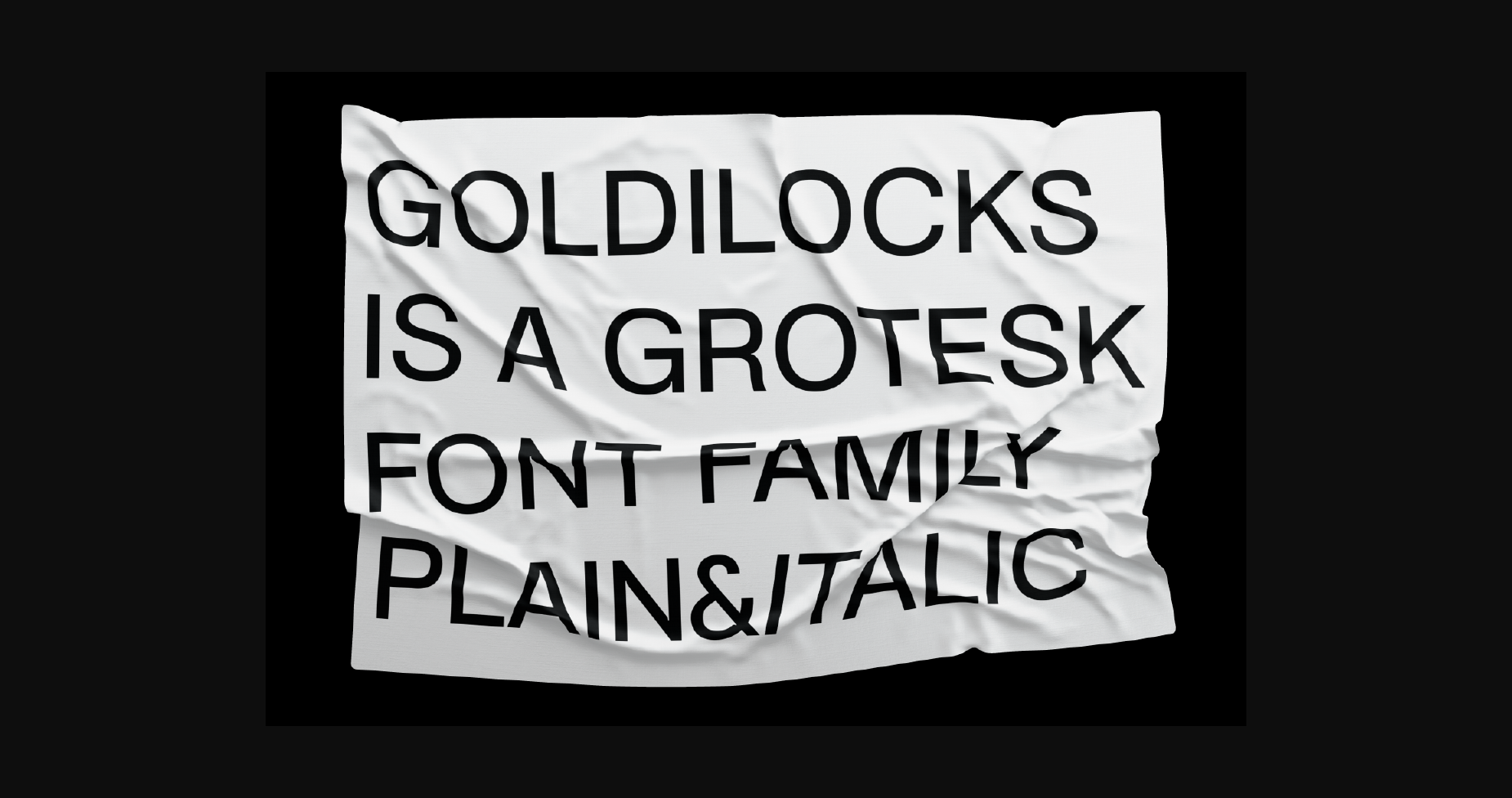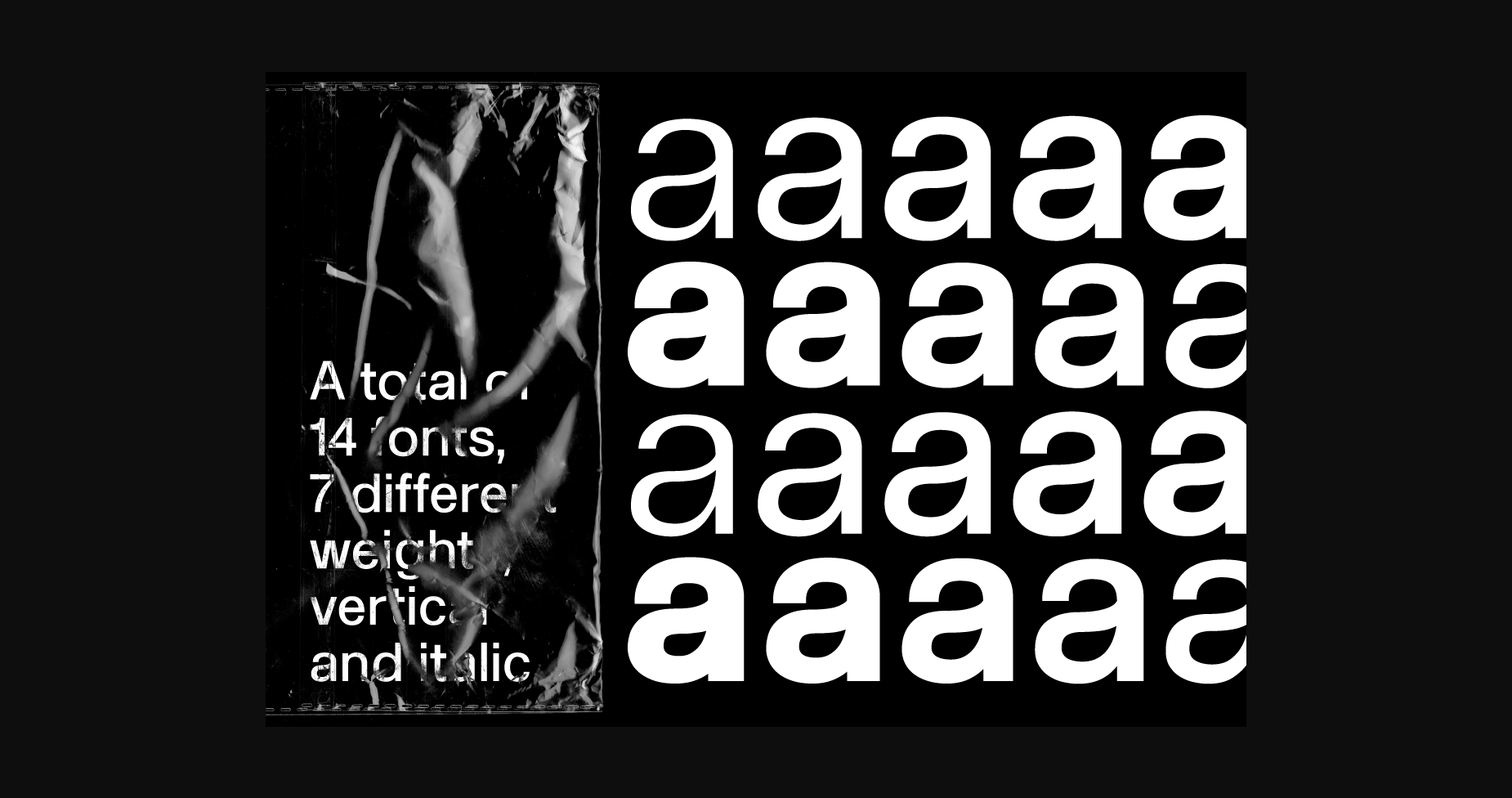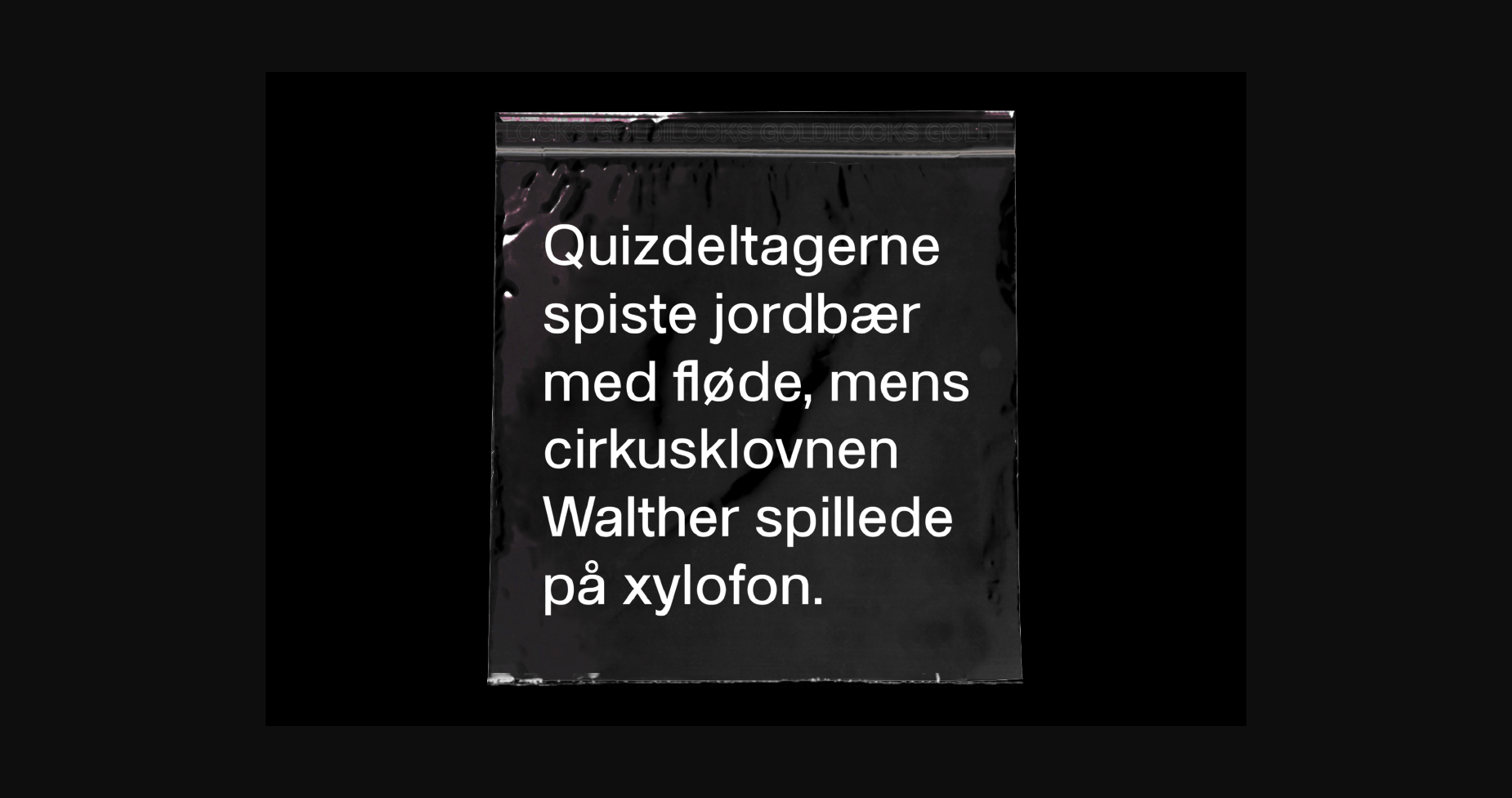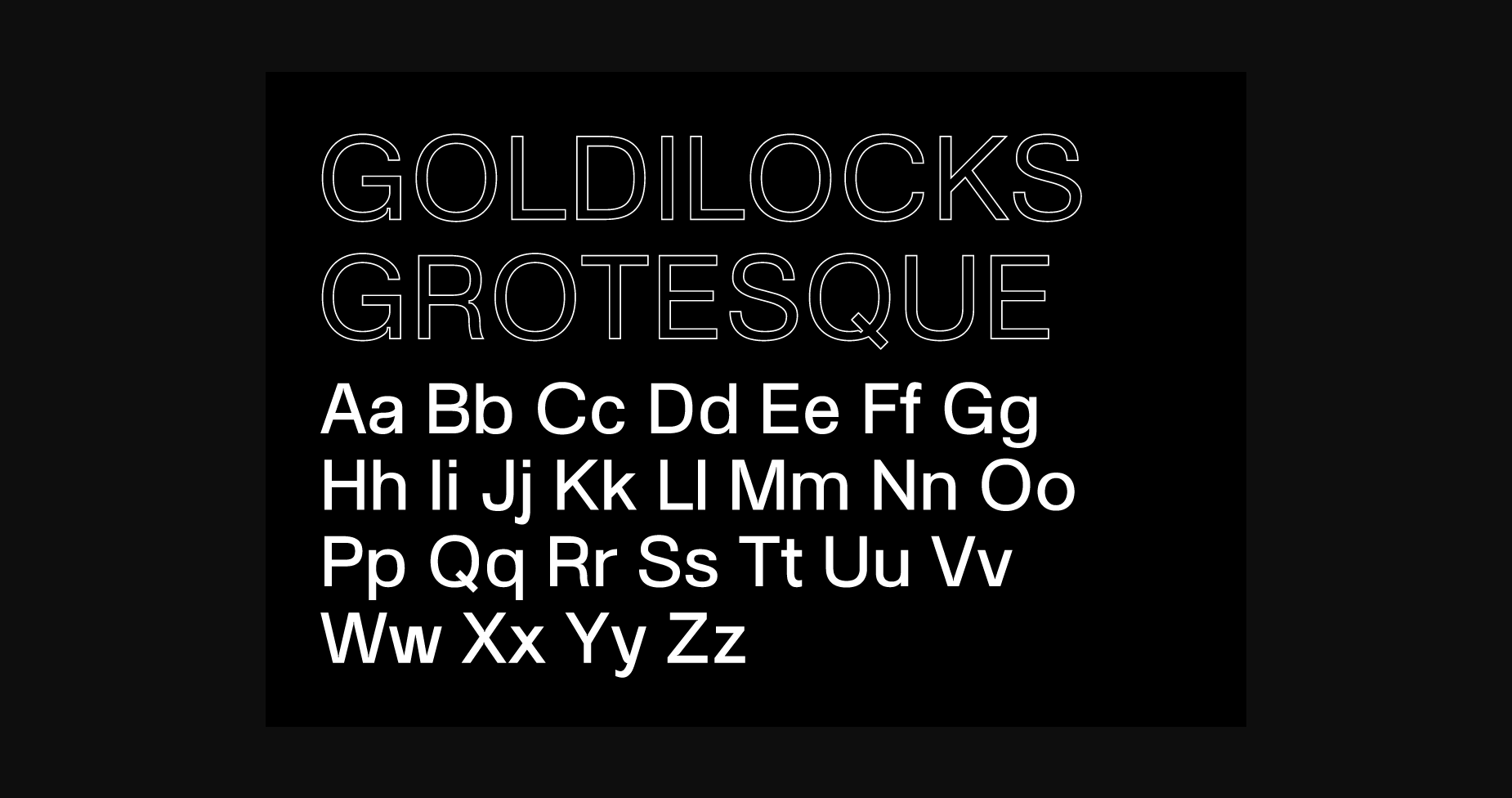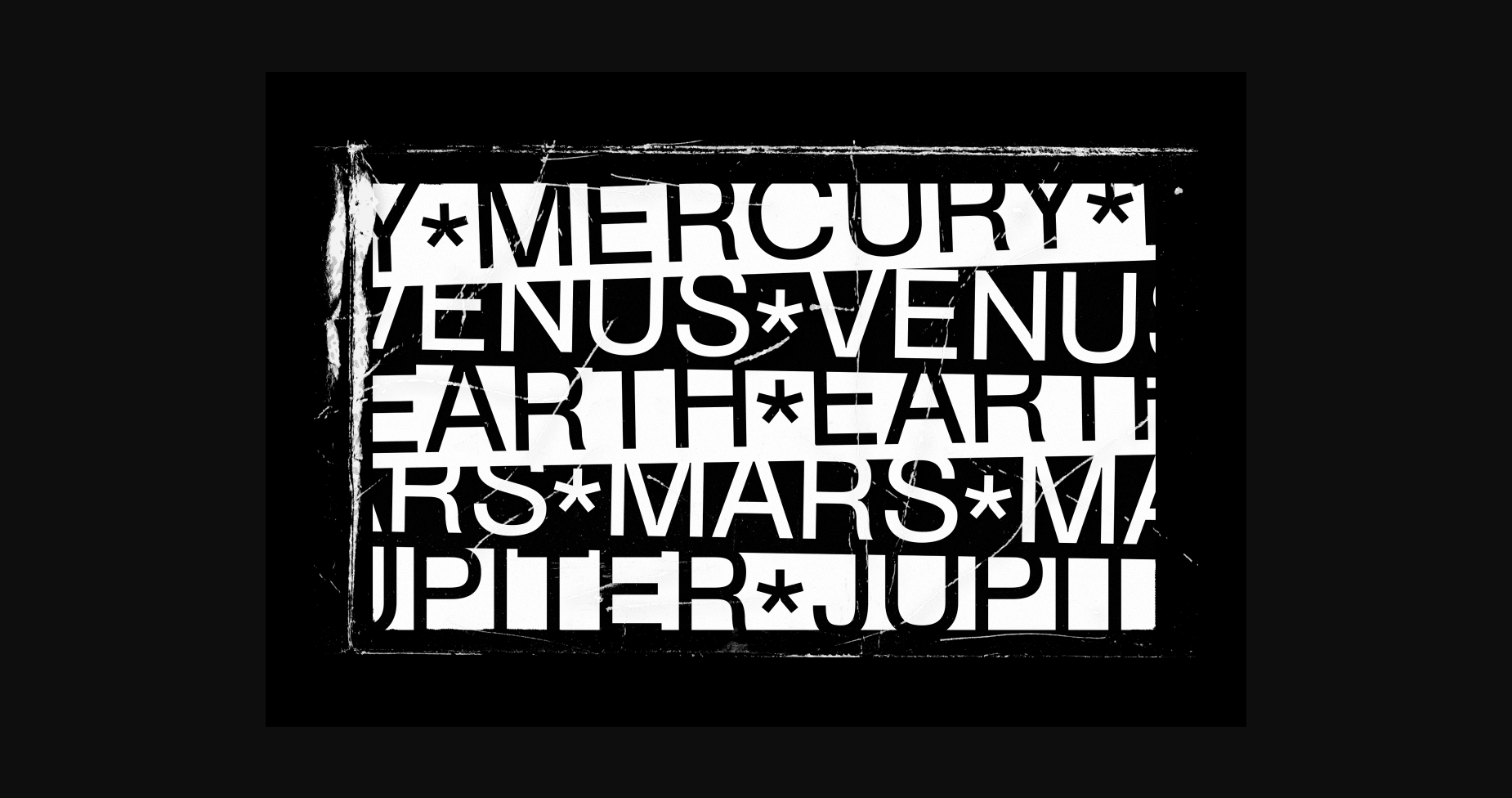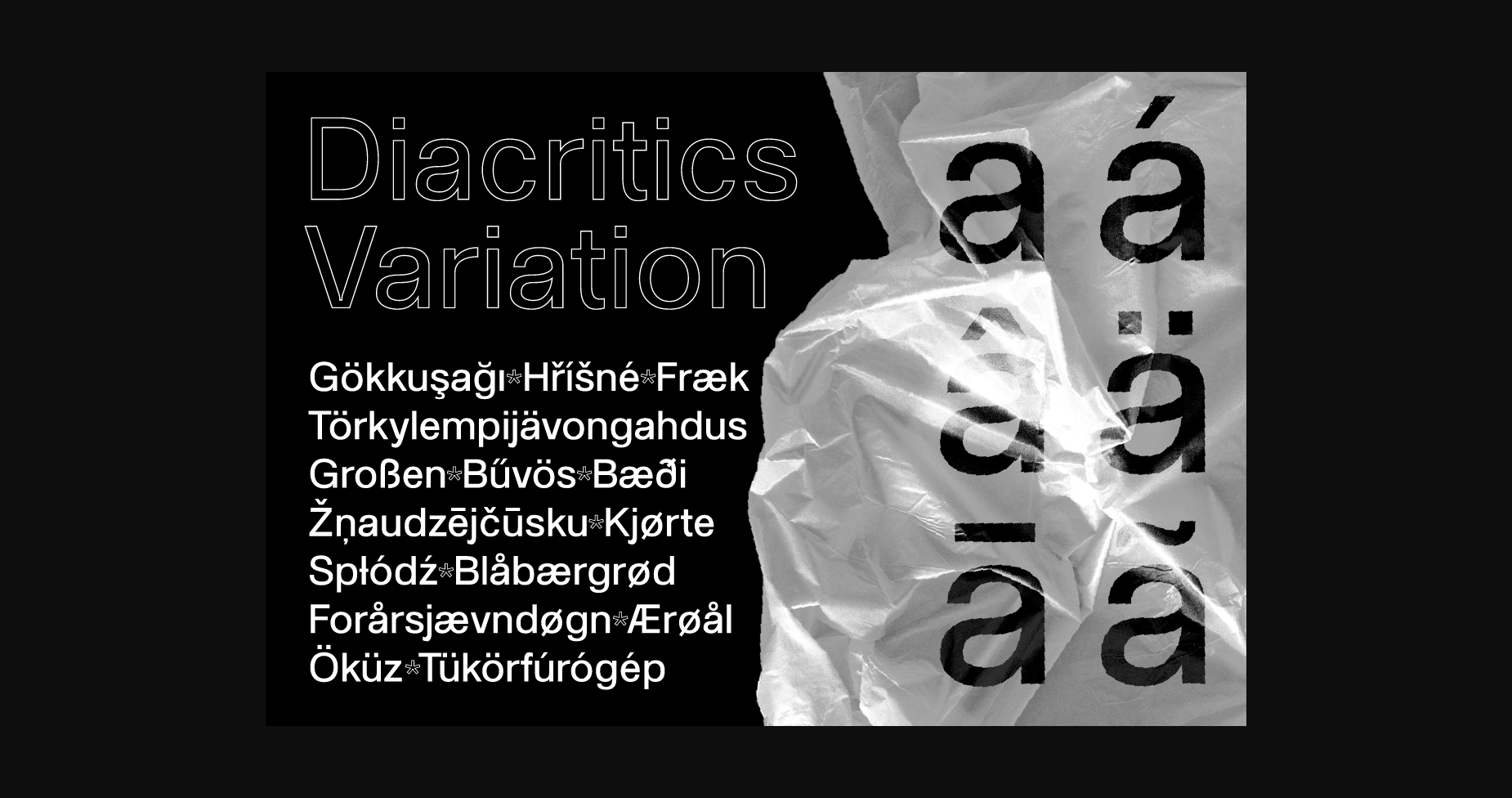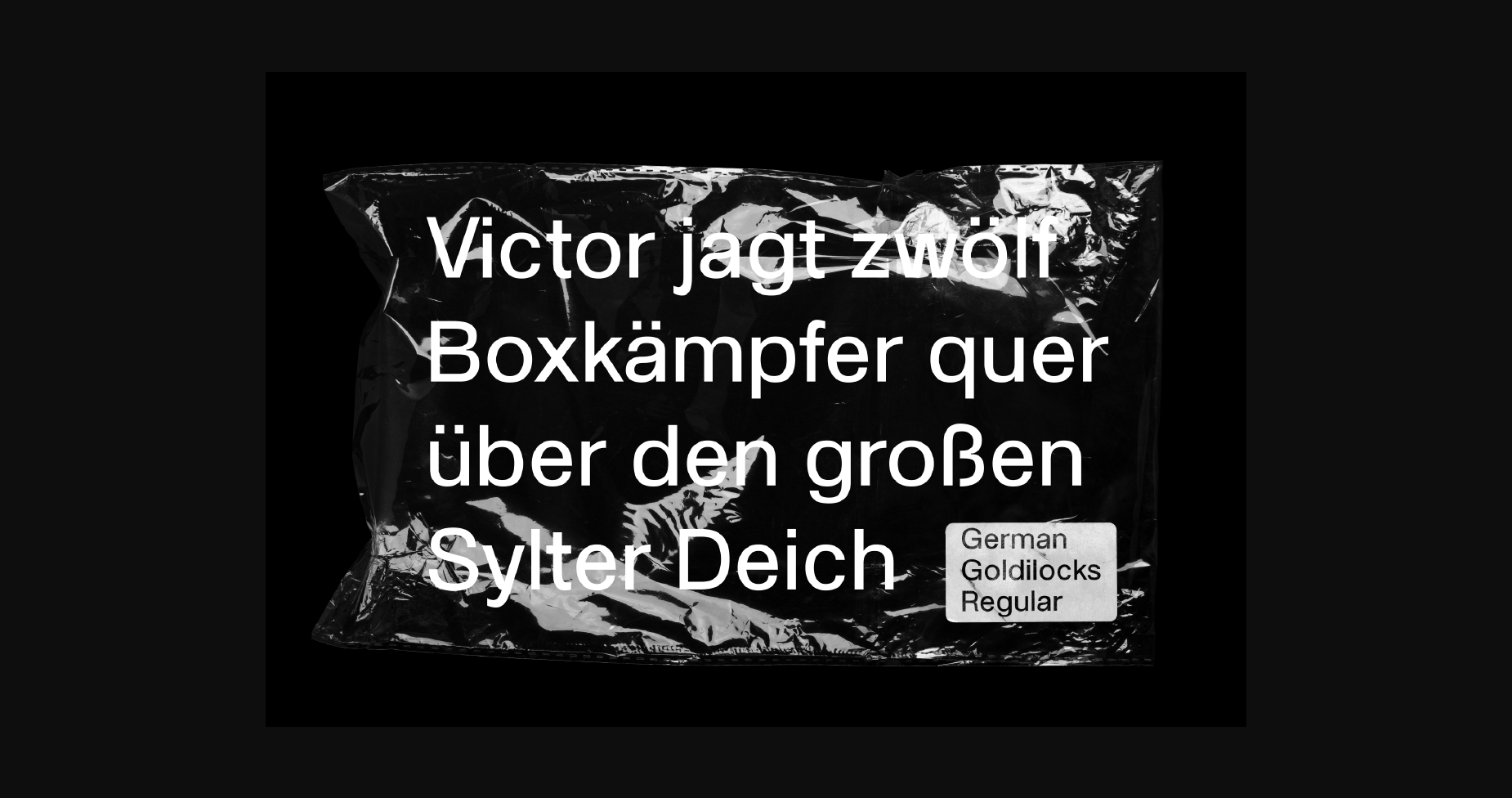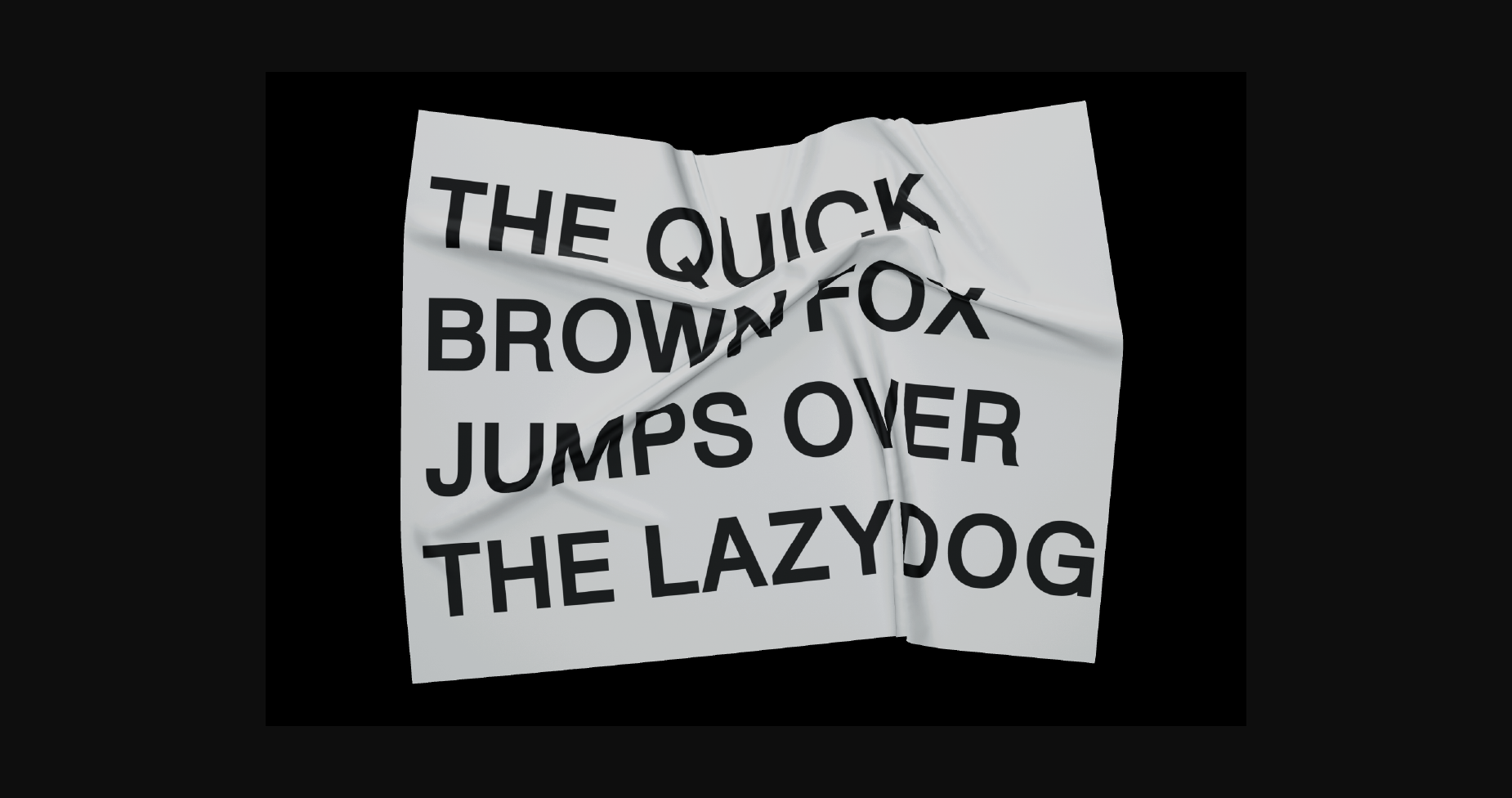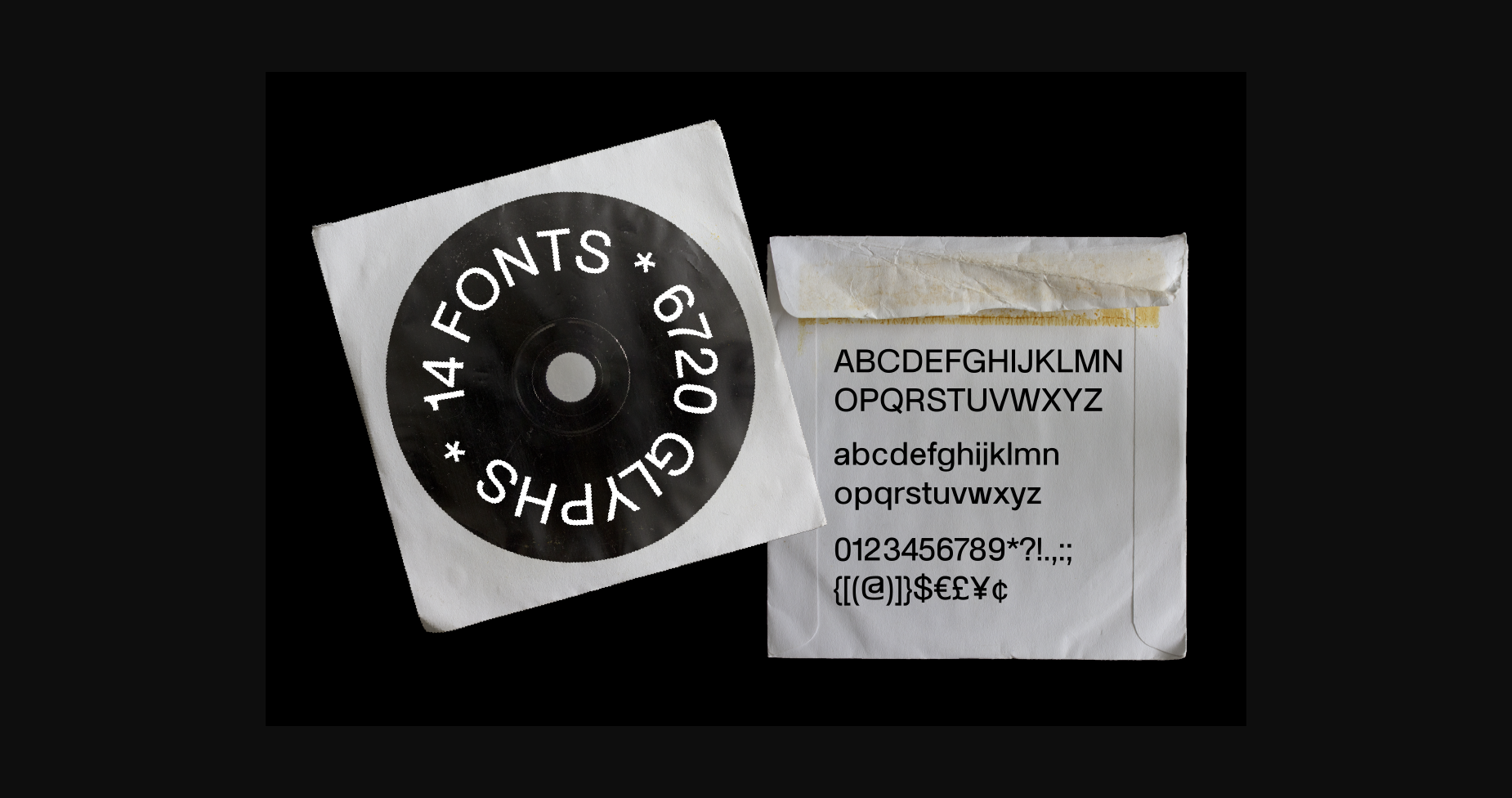
HomeSans Serif FontsSK Goldilocks Font Sans Serif Fonts SK Goldilocks Font FacebookTwitterPinterestWhatsApp 1 of 11 ... SK Goldilocks Font Poster 2... SK Goldilocks Font Poster 3... SK Goldilocks Font Poster 4... SK Goldilocks Font Poster 5... SK Goldilocks Font Poster 6... SK Goldilocks Font Poster 7... SK Goldilocks Font Poster 8... SK Goldilocks Font Poster 9... SK Goldilocks Font Poster 10... SK Goldilocks Font Poster 11... About SK Goldilocks Font SK Goldilocks is a modern and clean sans serif font. It will elevate a wide range of crafting ideas, from cards, to branding, labels and much more. DOWNLOAD NOW People also explored Freshe Font Spooky Font Royal Absinthe Font Melca Font Sunday Walking Street Font Katzenjammer Butterchese Font UT Triumph Script Millionaire Font 214 0 TagsSK Goldilocks Font Previous articleSK Merih FontNext articleSK Curiosity Font LEAVE A REPLY Cancel reply Comment: Please enter your comment! Name:* Please enter your name here Email:* You have entered an incorrect email address! Please enter your email address here Website: Save my name, email, and website in this browser for the next time I comment. Personal Use Free Sheiloria Personal Use Free Read more about this font Predators Personal Use Free Read more about this font Martani Personal Use Free Read more about this font Mellow Personal Use Free Read more about this font BLOG To increase your work productivity, choose the most readable fonts. In today's fast-paced work environment, where digital communication and information consumption are integral to our daily routines, the choice of fonts can significantly impact... Elegant Wedding Invitation Fonts – Handwritten & Script Fonts Free Fonts Risk: Why Free Fonts Can Be Dangerous for Designers Best Fonts for T-Shirt Design – Top 2025 Picks